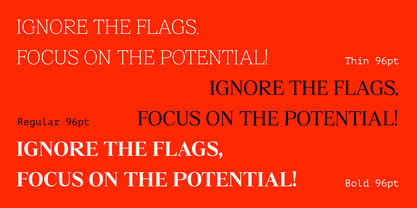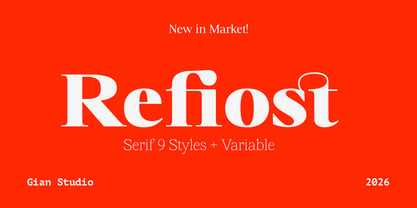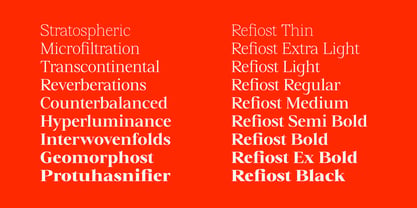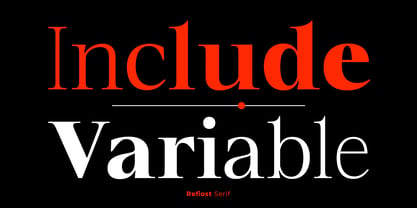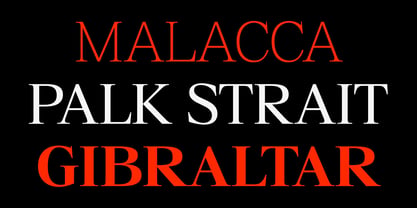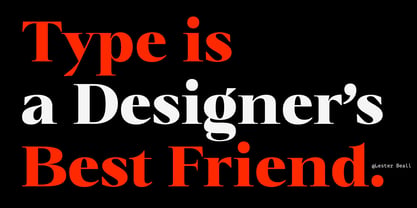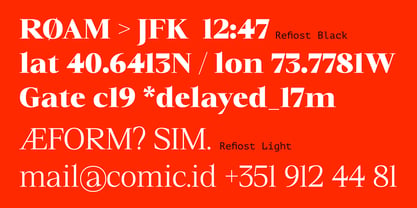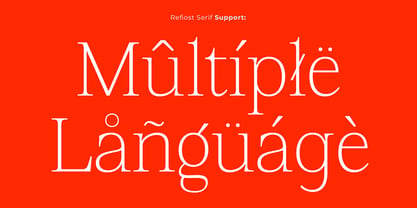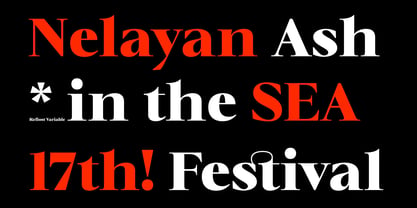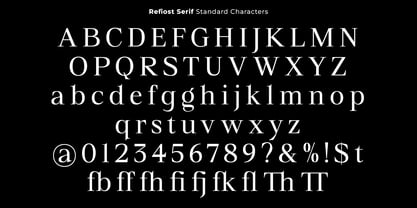
Refiost
by Gian Studio
The Refiost Font Family was designed by Yusliana M Isa and published by Gian Studio. Refiost contains 180 styles and family package options. More about this family
Refiost is Corporate Logo Serif Font is a well-balanced modern font with a minimalist, unique, and iconic serif, font that you can combine to get any variations and unique shapes easily just in seconds with choose ligatures of them. It is a serif font with minimalist style that perfect for branding projects, logo, poster designs, social media posts, advertisements, product packaging, product designs, label, photography, watermark, invitation, stationery, and any projects, it makes with a high level of legibility.
9 Weights Refiost font
Ligature Characters
Character set A-Z
Numerals & Punctuation
Accented Characters (West Europe)